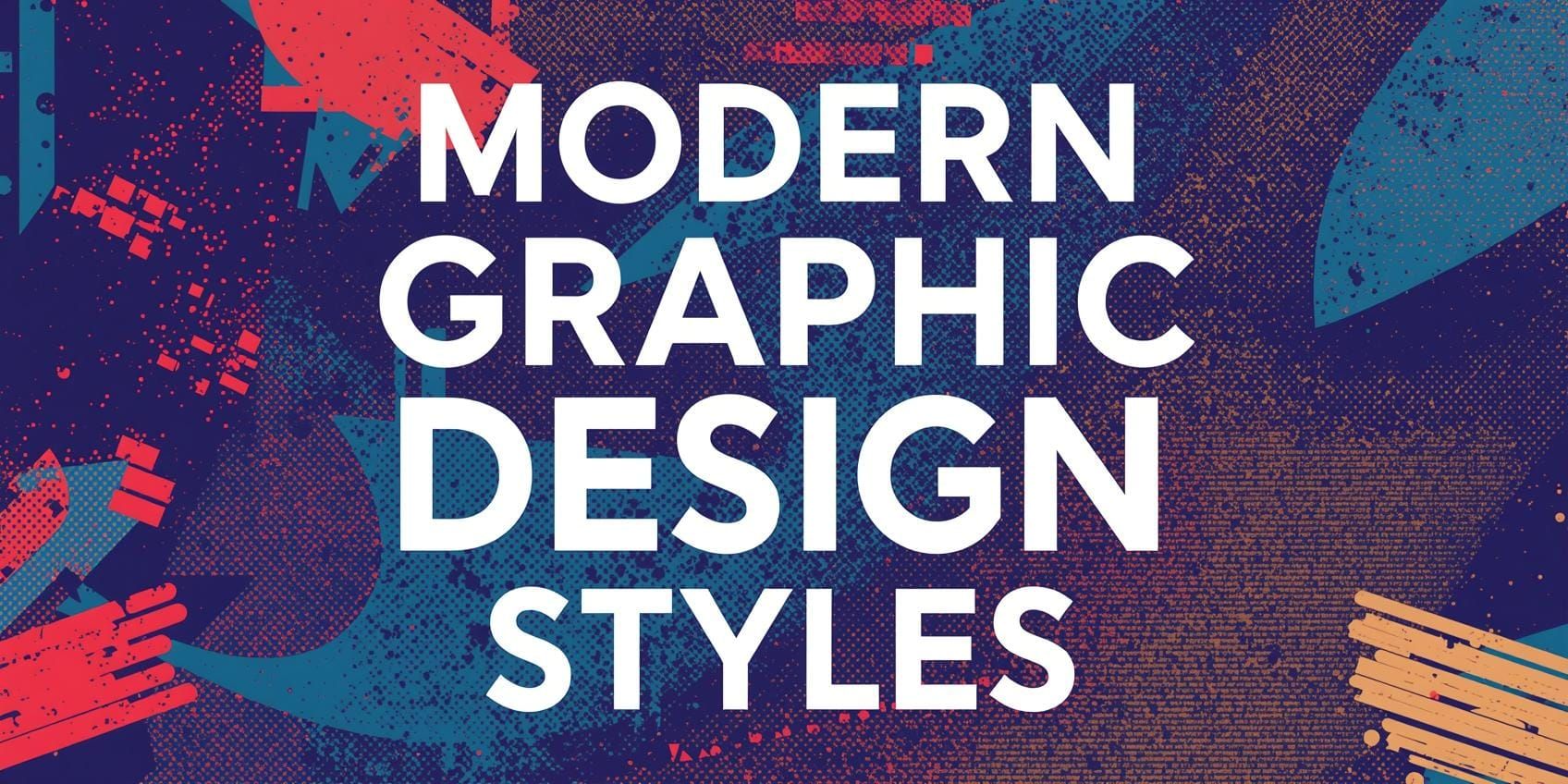
20+ Modern Graphic Design Styles Designers Use Now
Design trends move fast, but good style choices are still about clarity and intent. The reason modern graphic design styles feel “modern” is not only color or type. It’s how the layout guides attention, how visuals feel consistent, and how everything works on a phone screen. If you’re a designer or social creator, learning the main styles helps you choose a direction fast instead of starting from scratch every time.
In this roundup of modern graphic design styles, you’ll get more than names. For each style, you’ll see what it looks like, where it works best, and a quick way to recreate it for real projects.
How to Choose Modern Graphic Design Styles for Your Project
Before picking a look, decide the job of the design.
Quick decision rules
• Need trust and clarity? Choose minimal, grid-based styles.
• Need energy and attention? Choose bold type, contrast, motion cues.
• For personality? Choose illustration, collage, or textured styles.
• For premium? Choose quiet luxury, editorial, and refined spacing.
The best modern graphic design styles are the ones that match your message, not the ones that are trending on your feed today.
Modern Graphic Design Styles with Clean Minimal Layouts
Minimal doesn’t mean boring. It means intentional.
1. Minimal Swiss grid
Look: strict grid, aligned type, strong hierarchy, lots of whitespace
Best for: tech, portfolios, product UI promos, modern brands
Try this: use a 12-column grid, 2 type sizes, and one accent color
2. Quiet luxury minimal
Look: soft neutrals, calm spacing, subtle lines, premium restraint
Best for: skincare, fashion, boutique services
Try this: use oversized margins, thin rules, and muted palette roles
3. Monochrome contrast
Look: black/white with one accent, strong readability
Best for: announcements, events, bold offers
Try this: set one hero headline and one small info block
4. Soft gradient minimal
Look: gentle gradients, clean type, airy layout
Best for: apps, creators, modern lifestyle brands
Try this: gradient background + simple card layout + clear CTA
Modern Graphic Design Styles that Rely On Typography
Type-driven styles are strong for social, posters, and promos.
1. Bold condensed headline posters
Look: large condensed type, short lines, high impact (example Blockton Varsity Font)
Best for: events, drops, announcements
Try this: one word per line, tight leading, big contrast
2. Editorial typography
Look: serif (example Anya Slab) + sans pairing (example ROSA), magazine-like layout, strong rhythm
Best for: premium brands, blogs, campaigns
Try this: use one serif headline, one sans body, consistent spacing
3. Kinetic type layout (static version)
Look: type that feels like motion through angled lines and overlap
Best for: music, youth brands, creator content
Try this: rotate one text block slightly and add motion lines
4. Maximal type collage
Look: many type elements, stickers, labels, loud hierarchy
Best for: streetwear, bold creator brands, drops
Try this: use 3 text styles max and keep alignment intentional
5. Outline typography
Look: stroked type, layered text, depth without heavy color
Best for: modern promos, posters, sports graphics
Try this: outline headline + solid subhead + simple background
Modern Graphic Design Styles Built On Shapes and Geometry
These styles feel modern because they are structured and scalable.
1. Geometric modular blocks
Look: rectangles, circles, modular cards, system feel
Best for: product feature graphics, business slides, UI promos
Try this: build with 3-4 reusable blocks and repeat spacing rules
2. Bauhaus-inspired modern
Look: primary shapes, bold color, simple type, playful order
Best for: creative studios, posters, playful brands
Try this: limit to 3 colors and place shapes on a grid
3. Memphis revival (controlled)
Look: fun shapes, patterns, playful energy but organized
Best for: creators, youth products, social posts
Try this: keep one neutral background so it doesn’t get noisy
4. Isometric geometry (lightweight)
Look: 3D-ish blocks and icons, clean perspective
Best for: explainer graphics, tech, dashboards
Try this: keep shadows subtle and colors limited
Modern Graphic Design Styles with Texture and Realism
Texture adds warmth, while still feeling current.
1. Paper texture modern
Look: grain, paper noise, tactile feel
Best for: craft brands, cafe promos, print-style posts